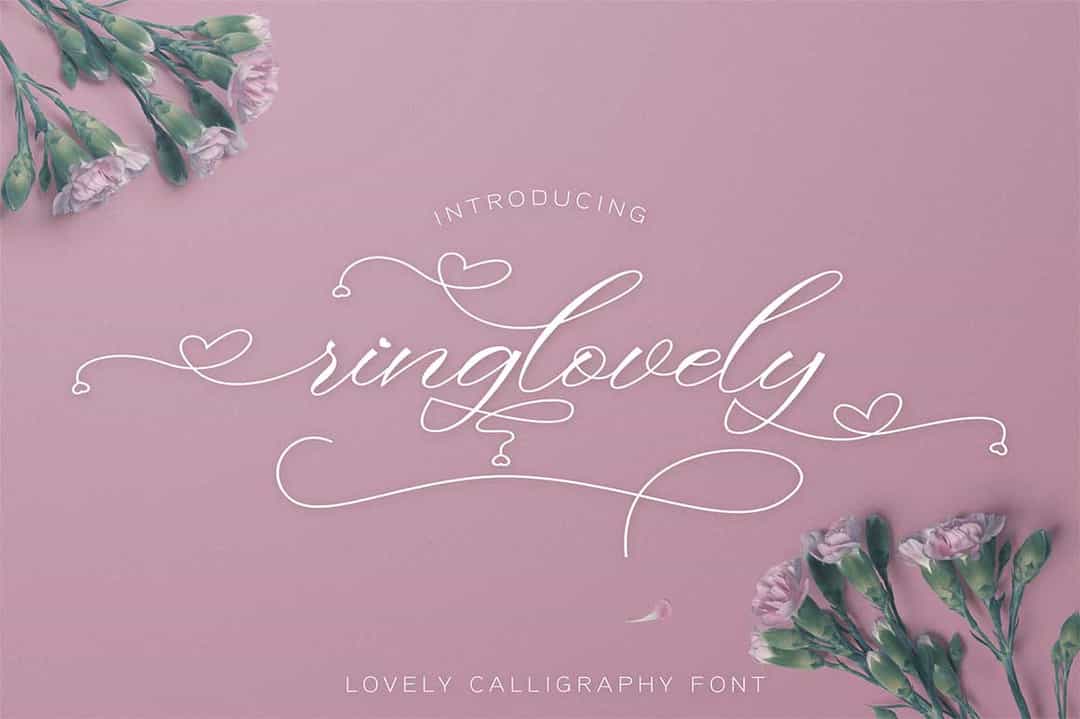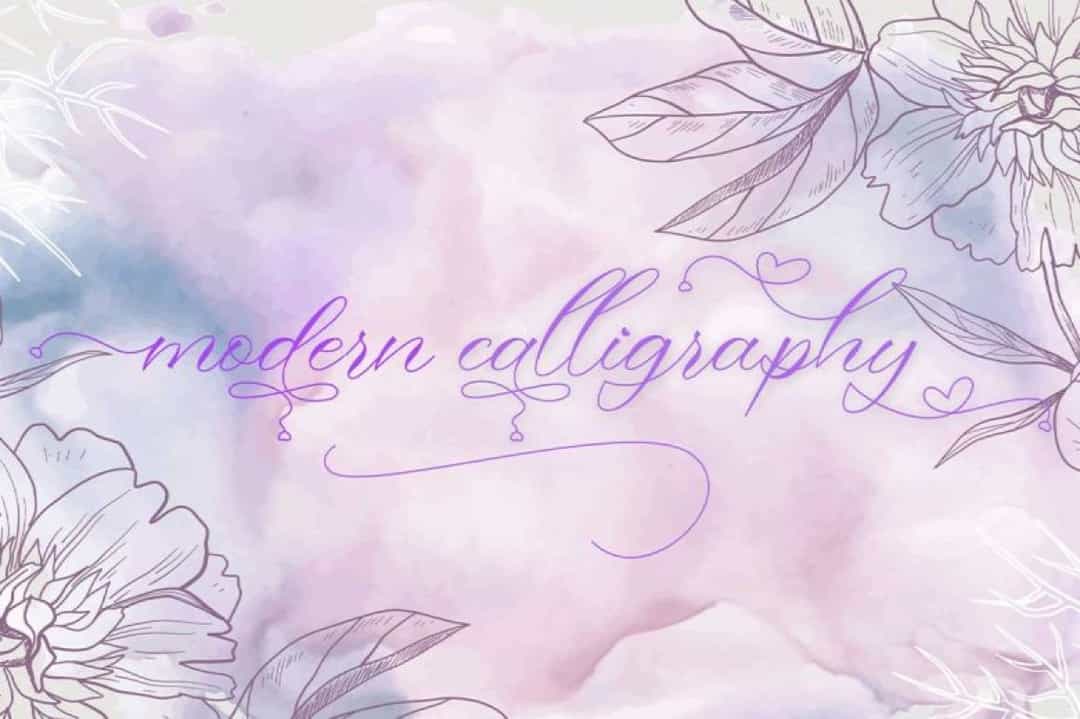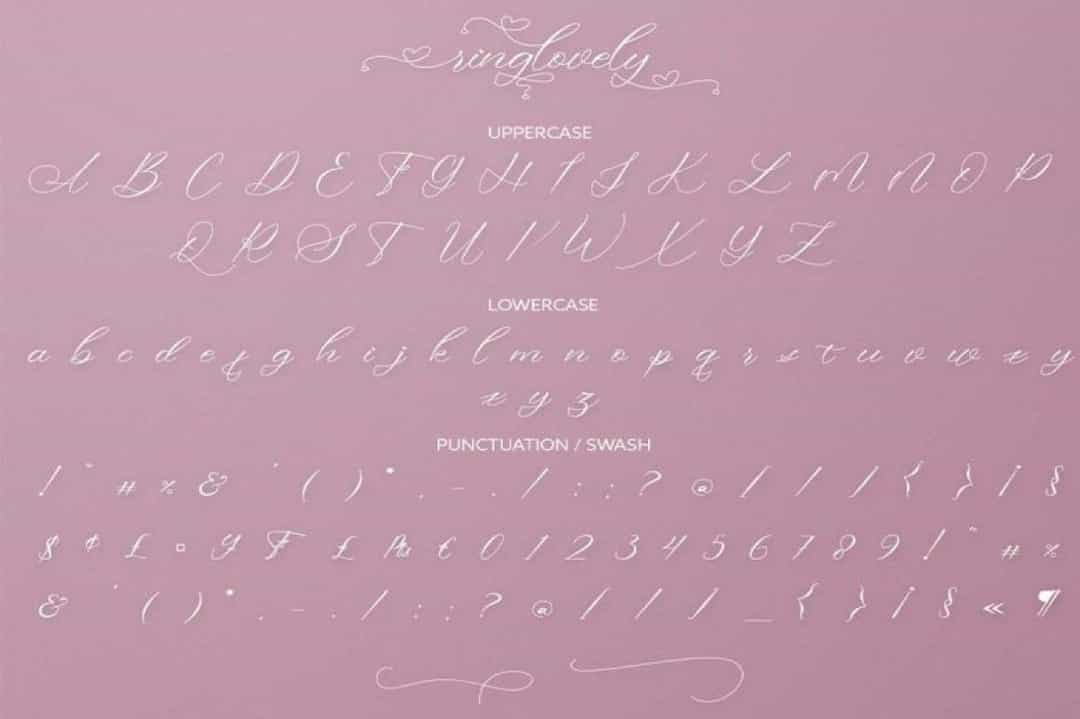
Ringlovely is a calligraphy handwritten script font which is named as Ringlovely. Since it is PUA encoded, it means that one can easily access all the glyphs and swashes of this font! Moreover, this font also has a different baseline as well as smooth lines, stunning alternates and beautiful glyphs that make the calligraphy all the more fantastic.